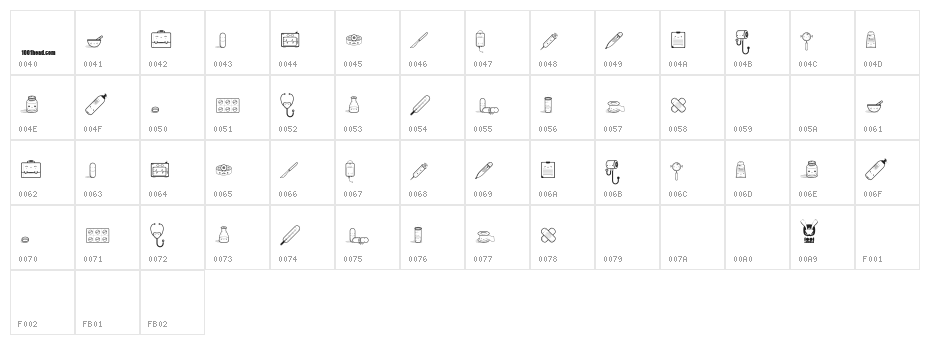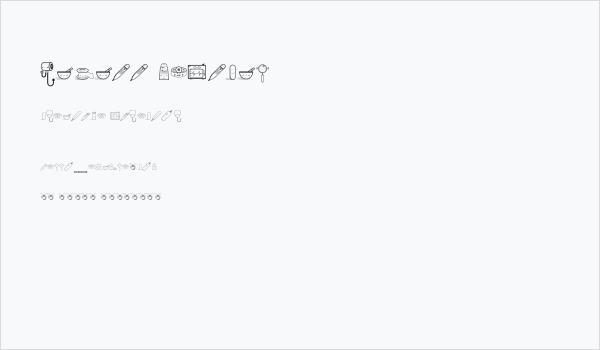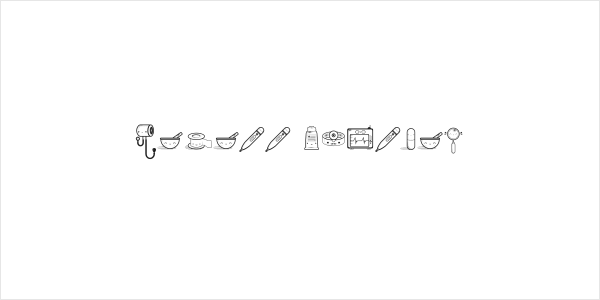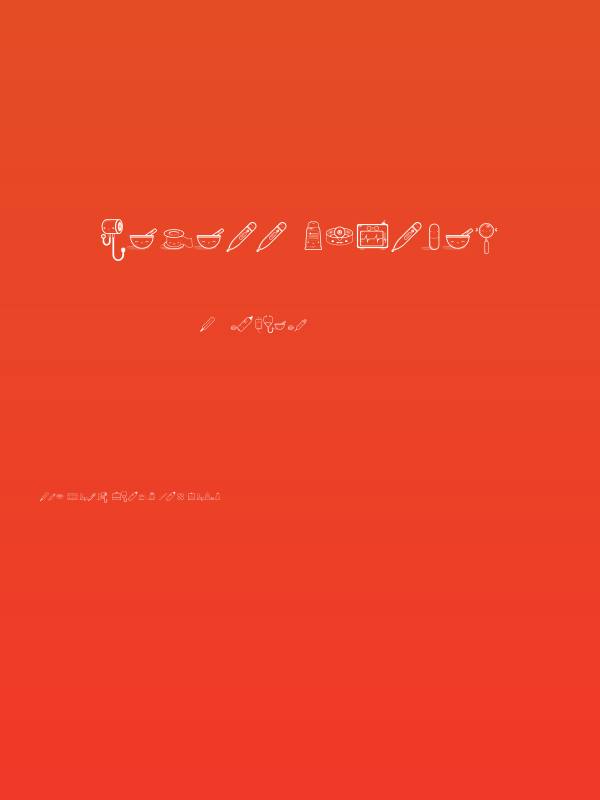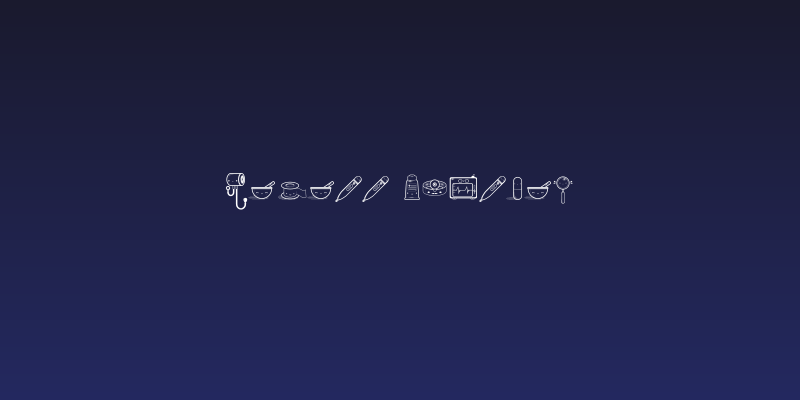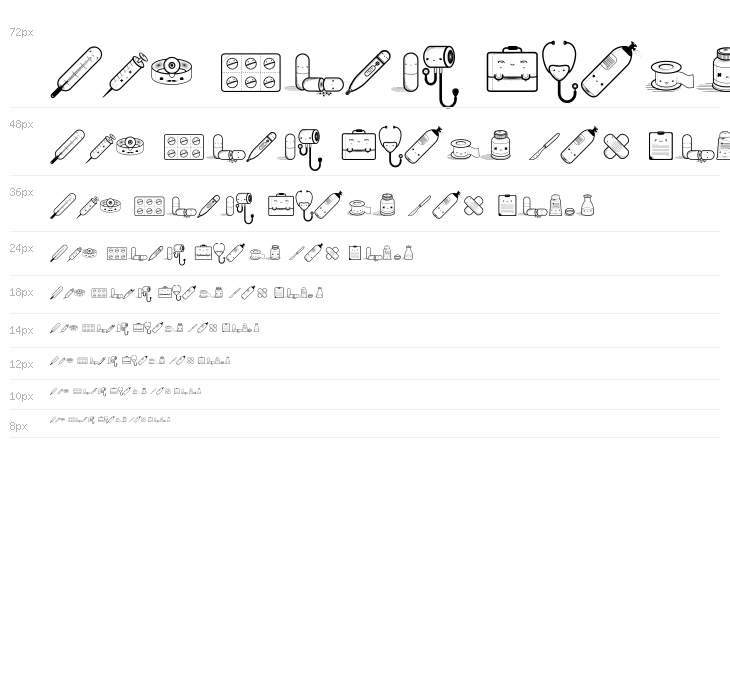
Kawaii Medical Font
Kawaii Medical Description
This is a whimsical and playful decorative font featuring kawaii-style medical-themed illustrations. Each character is represented by a cute, cartoonish depiction of medical items such as syringes, pills, stethoscopes, and bandages, each with a smiling face or charming expression. The style is consistent with a light-hearted, friendly aesthetic, making it ideal for projects that require a fun and approachable look. The illustrations are detailed yet simple, maintaining clarity and readability despite their decorative nature.
| Use Case | Logos, Headlines, Themed designs |
| Proposed Projects | Ideal for children's educational materials, healthcare-themed party invitations, playful medical branding, or any project needing a cute and friendly medical theme. |